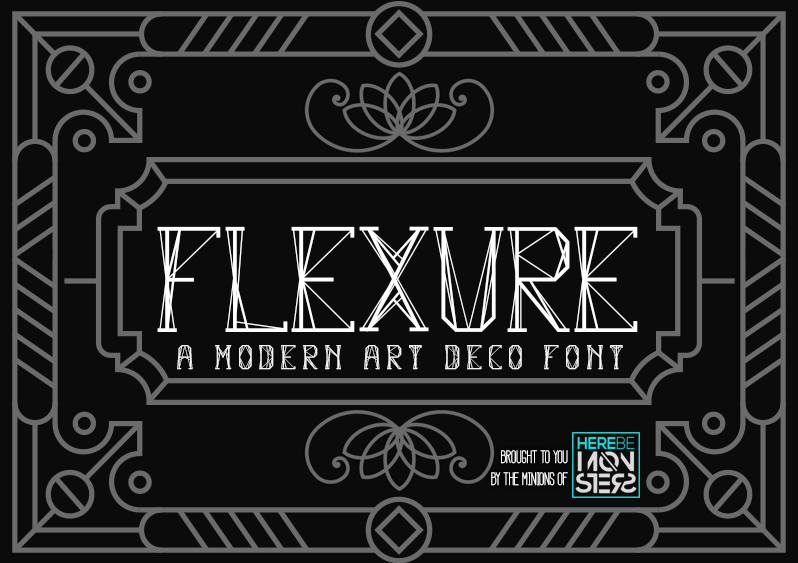
Font name: | Flexure |
Author: | Here Be Monsters |
Note by Here Be Monsters | |
The font name, Flexure, means to bend or flex; to be folded. Its angular shapes are inspired by the Art Deco movement and features geometric "scaffolding" as well as slab serifs. Flexure is great fit for those looking for a modern art deco style font. FOR PERSONAL USE ONLY. For licensing visit: http://www.monsterswithin.com - Big Minion |